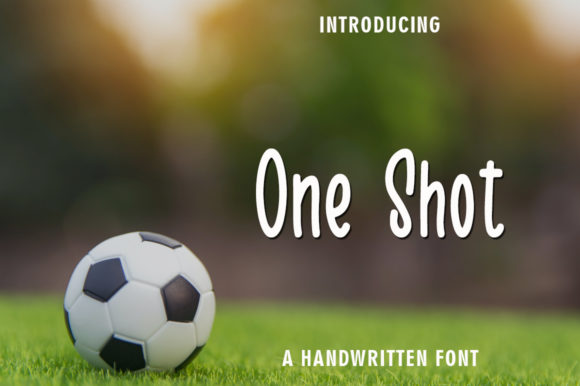
One Shot Font: Casual Script for Campaign Visuals
Using One Shot Font for Social Media Launch Graphics
When I was tasked with designing the visual assets for a recent summer product launch, finding the right typography felt like hitting a wall until I tested One Shot. As a marketing specialist managing tight deadlines and multiple deliverables, I needed a typeface that could carry the energy of our campaign without requiring hours of manual lettering adjustments. One Shot is a casual, fun handwritten font, created by using a brush pen, and it immediately solved the problem of making our digital announcements feel authentic rather than corporate. In the high-speed environment of social media management, where scroll-stopping power is everything, this specific style of display typography provided the organic texture we were missing.
The challenge with most script fonts in advertising is that they often sacrifice legibility for flair, but Script Handwritten styles like this one strike a crucial balance for marketers. During the initial mockup phase for our Instagram carousel, I used One Shot for the primary hook text on the first slide. The brush stroke variation naturally drew the eye to the key message, creating a visual hierarchy that guided users through the rest of the content. Unlike rigid sans serif fonts that can sometimes feel cold in lifestyle branding, or overly ornate calligraphy that fails on small mobile screens, this font offered a clean yet quirky aesthetic that translated perfectly to square and vertical formats. It allowed us to maintain brand consistency across ten different post variations without the design feeling repetitive or stale.
One Shot Typography for YouTube Thumbnails and Video Covers
Creating clickable thumbnails requires a deep understanding of contrast and instant readability, which is why integrating Fonts with strong personality traits is essential for video marketing strategies. When preparing a series of YouTube covers for an upcoming tutorial campaign, I utilized One Shot to highlight three-to-four-word power phrases that needed to pop against busy photographic backgrounds. The inherent weight of the brush pen strokes ensures that the text remains visible even when the thumbnail is viewed at 10% size on a mobile device, a critical factor for click-through rates. This isn't just about aesthetics; it is about functional design that supports the algorithm's preference for high-engagement visuals.
In my workflow, I paired One Shot with a bold, geometric sans serif for the secondary information, allowing the handwritten element to serve as the emotional anchor of the composition. This specific font pairing strategy leverages the "clean and a little bit quirky" nature of the typeface to signal creativity and approachability to potential viewers. For Reels covers and TikTok text overlays, the same principles apply. The casual flow of the letters mimics native platform typography, making branded content feel less like an advertisement and more like organic creator content. By treating the font as a strategic asset rather than mere decoration, we were able to increase the perceived value of the video content before a user even clicked play.
Optimizing Readability for Digital Ads and Mobile Previews
Digital advertising demands rigorous testing, and when deploying One Shot in paid media campaigns, readability on dark and light backgrounds became my primary focus. Because this typeface was created using a real brush pen, the edges have natural imperfections that prevent the text from looking pixelated or artificial when scaled down for banner ads. However, as with any expressive typography, proper spacing is non-negotiable. I found that increasing the tracking slightly improved legibility in smaller ad units, ensuring the message remained clear during fast-scrolling feed interactions. This attention to micro-typography details is what separates professional campaign design from amateur graphics.
For email marketing headers and website hero sections, the font serves as an excellent tool for establishing tone within seconds. When I A/B tested a promotional email using a standard serif versus One Shot for the subject line preview and header image, the handwritten version consistently aligned better with our audience's expectation of a personal, curated experience. It is important to remember that while this font is versatile, it works best for short headlines, callouts, and decorative titles rather than body copy. Respecting these usage boundaries ensures that the quirkiness enhances the user experience rather than hindering information consumption. Always preview your designs on actual devices, not just desktop monitors, to verify that the brush texture holds up across all screen resolutions.
Applying One Shot Script Handwritten Style to DIY and Branding Projects
Beyond digital campaigns, One Shot proves invaluable for physical touchpoints and merchandise where tactile appeal drives purchasing decisions. While planning a limited-edition packaging run for a client’s artisanal product line, we needed a label design that communicated craftsmanship and small-batch quality. The description notes that this font is the perfect fit for crafty DIY projects, and in a commercial context, this translates directly to premium branding perception. Using the font for product labels, tote bag prints, and thank-you cards created a cohesive unboxing experience that reinforced the digital messaging we had established online. The human touch embedded in the letterforms bridges the gap between e-commerce transactions and genuine connection.
For entrepreneurs and small business owners handling their own branding, this typeface offers a shortcut to achieving a bespoke logo look without hiring a custom lettering artist. I have used it to create wordmarks for pop-up shops and seasonal sales events where agility is key. The versatility allows it to function as a standalone logo or as a supporting element alongside a primary brand mark. When using it for merchandise like stickers or apparel, ensure you check the commercial licensing terms included with the file. Understanding whether your license covers physical products, digital templates, or client work is vital for protecting your business. Proper licensing transforms a simple font download into a legitimate business asset that can be monetized safely and ethically.
Strategic Font Pairing and Commercial Licensing Considerations
To maximize the impact of Script Handwritten typefaces in professional workflows, mastering font pairing is essential for maintaining visual harmony. One Shot possesses enough character to stand alone, but it truly shines when grounded by a neutral counterpart. In my recent webinar promotion kit, I paired it with a minimalist modern sans serif for dates, times, and registration links. This contrast ensures that the quirky personality of the brush script doesn't overwhelm the logistical information necessary for conversion. Avoid pairing it with other highly decorative or distressed fonts, as this creates visual noise that confuses the viewer. Stick to clean, structured companions that let the handwritten elements breathe.